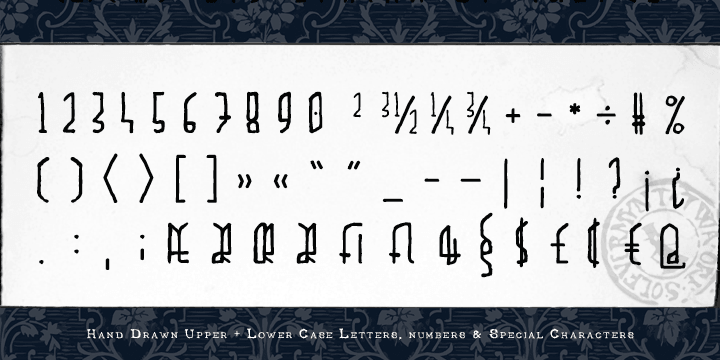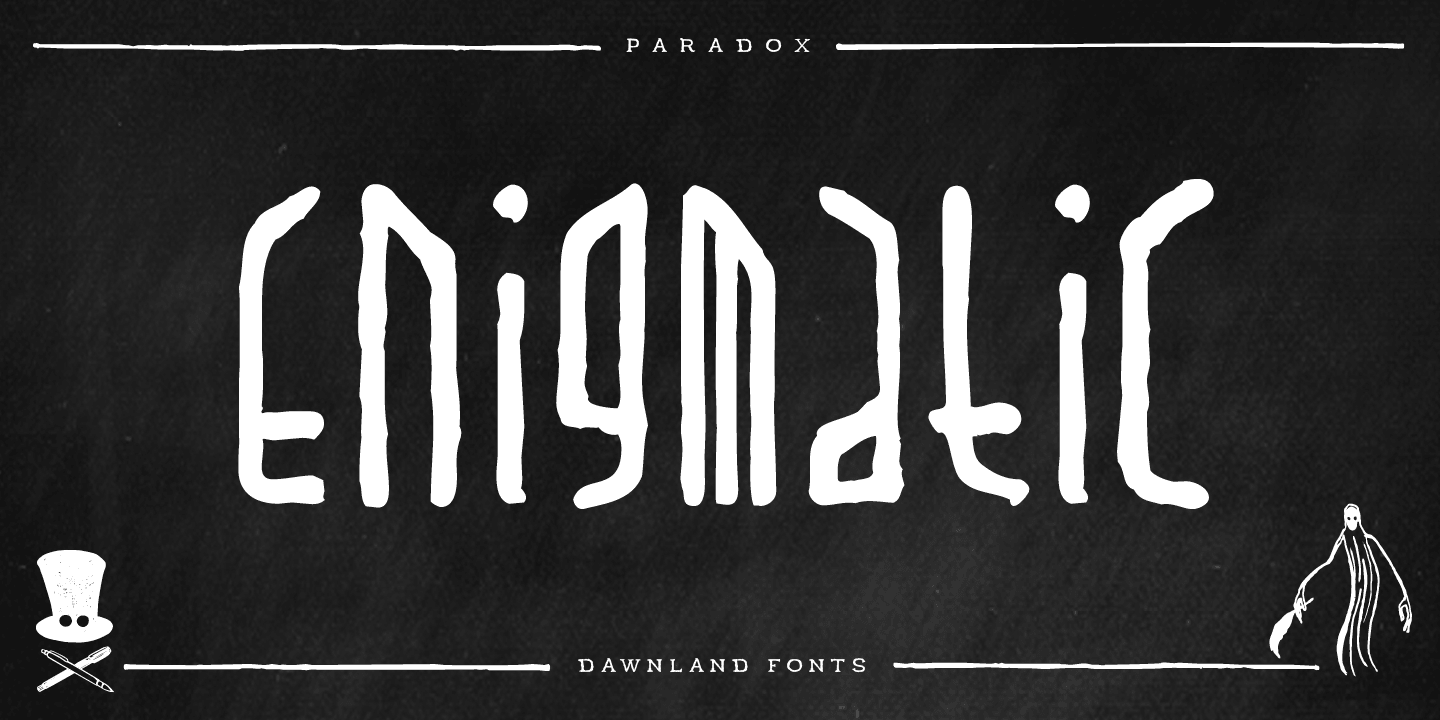
Paradox X is a novelty font published by Dawnland.
Hand drawn narrow enigmatic grotesque for headlines, preamble and shorter or longer texts.
Paradox X contain upper- and lowercase letters (A-Z + swedish characters Å Ä Ö), numbers and many many special characters and glyphs.
Common ligatures fi, fl, AE, OE, ae and oe. (open type version of the font and open type compatible layout application required).
Paradox X goes perfect with the font Paradox Runa (hand drawn elder norse “futhark” runes)!